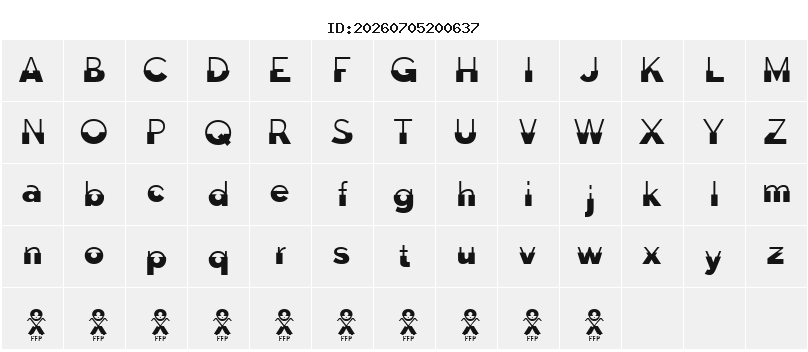
• Font Name: Disoluta
• Designer: deFharo
• Manufacturer: Fernando Haro
• Description: Disoluta is a typographical experiment fusion of two sans fonts with different weights. The result is a font optimal for titles, readable and attractive, decorative, display & exclusive.
Disoluta.ttf is a modern, elegant sans-serif font designed for ultimate readability and visual harmony. Perfect for branding, headlines, web design, and print materials.